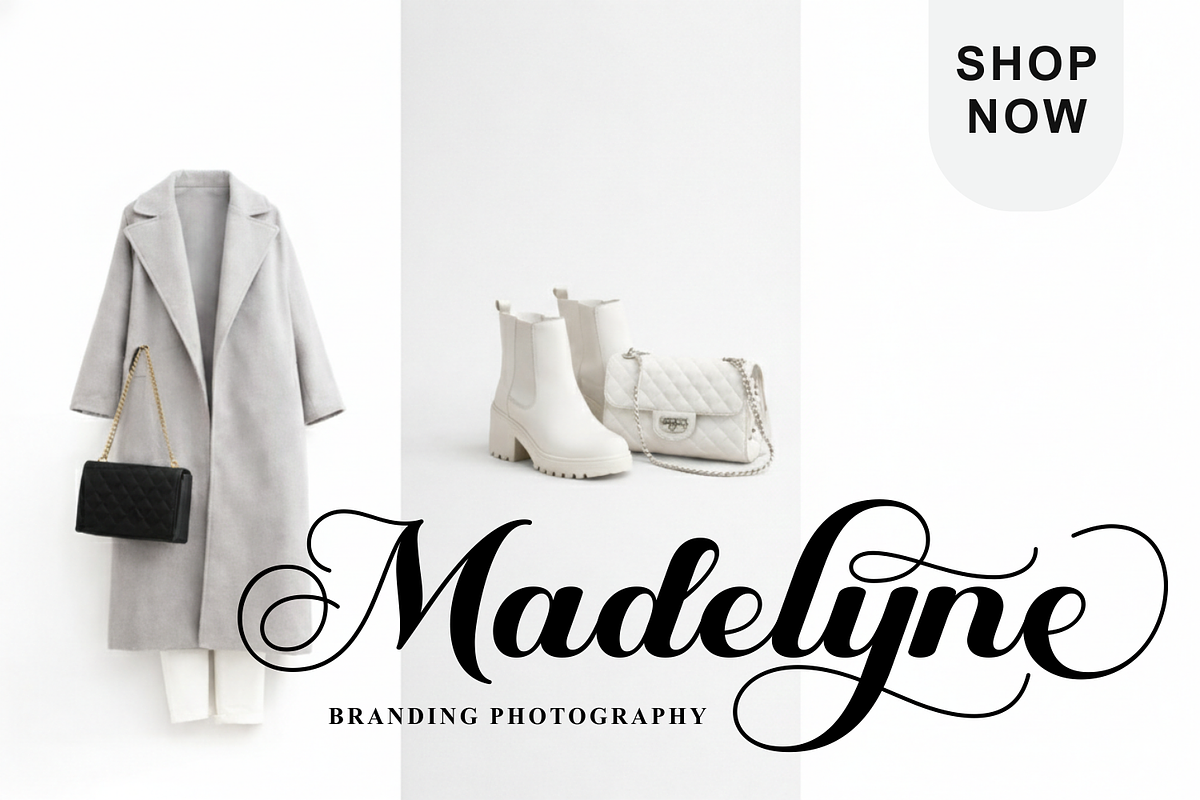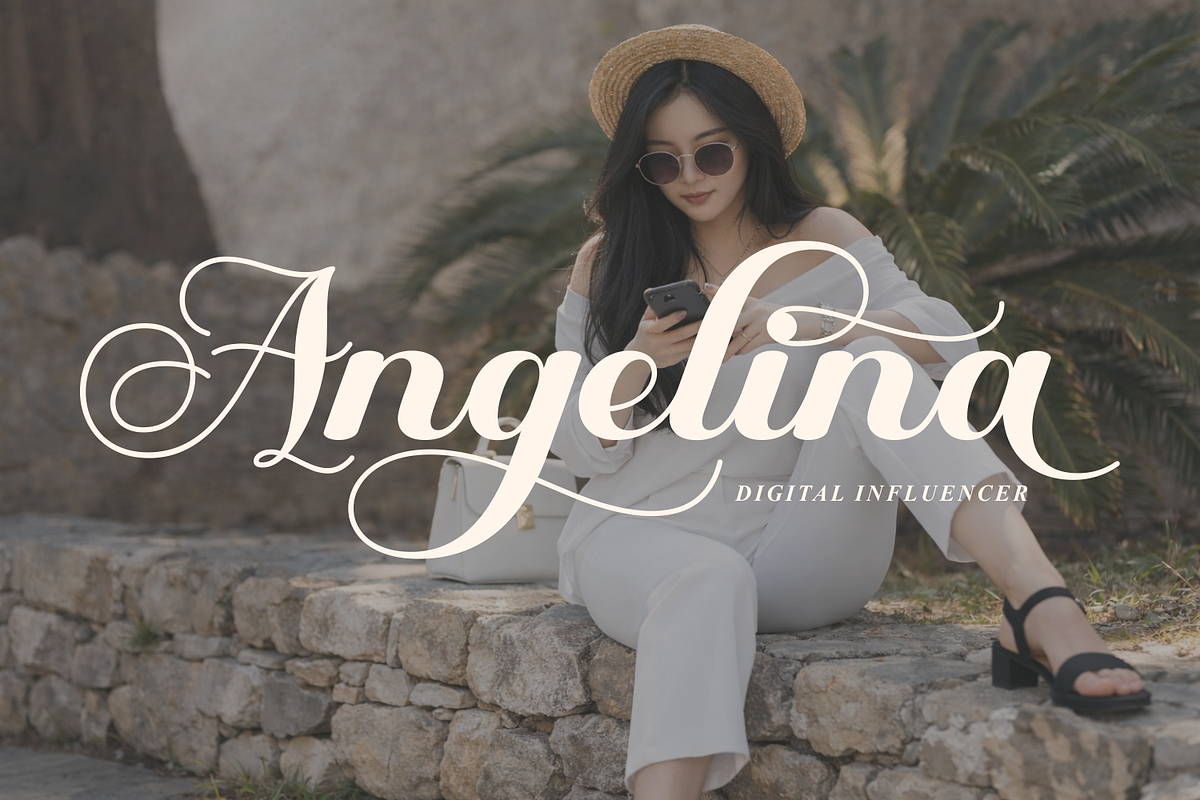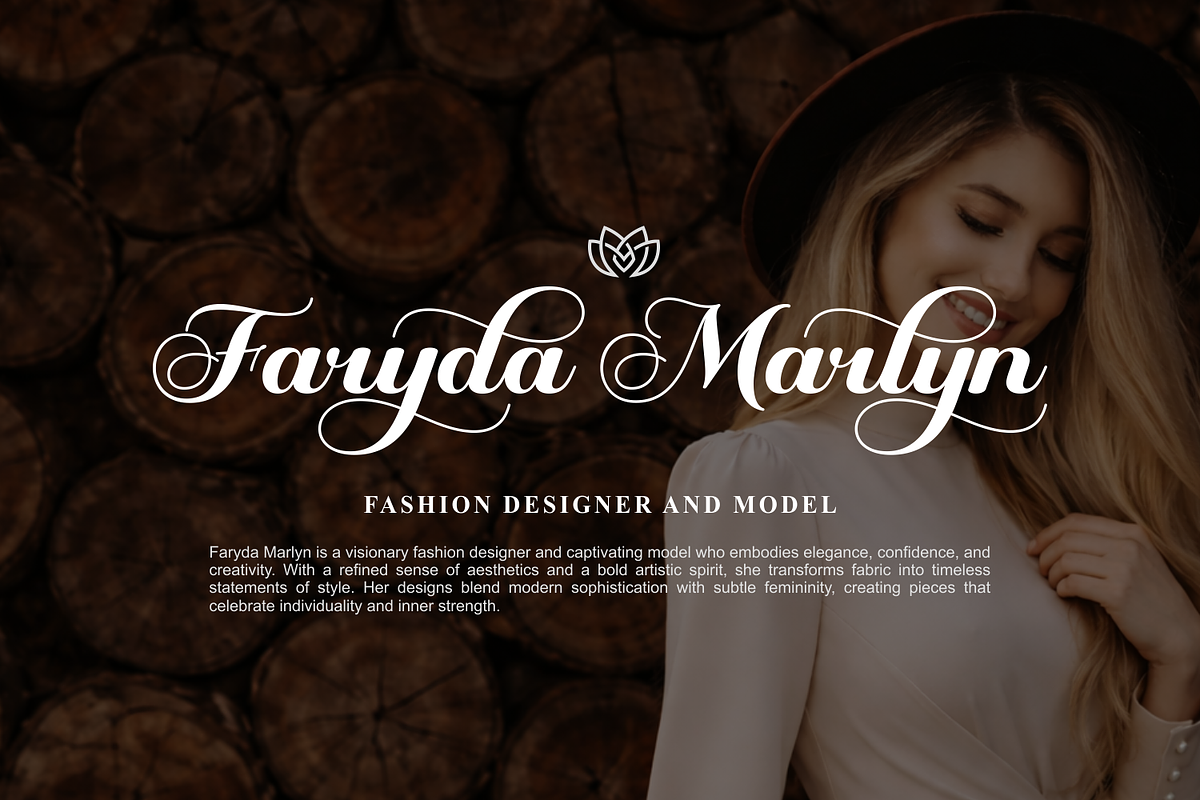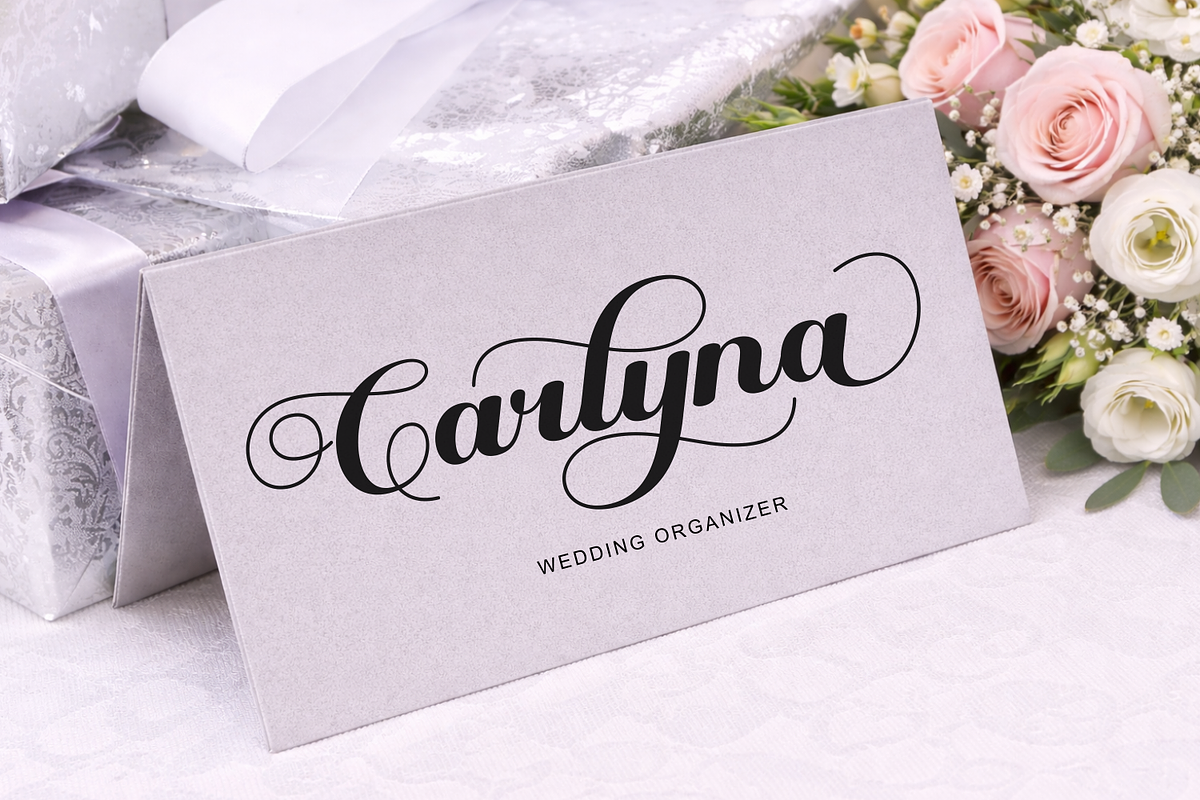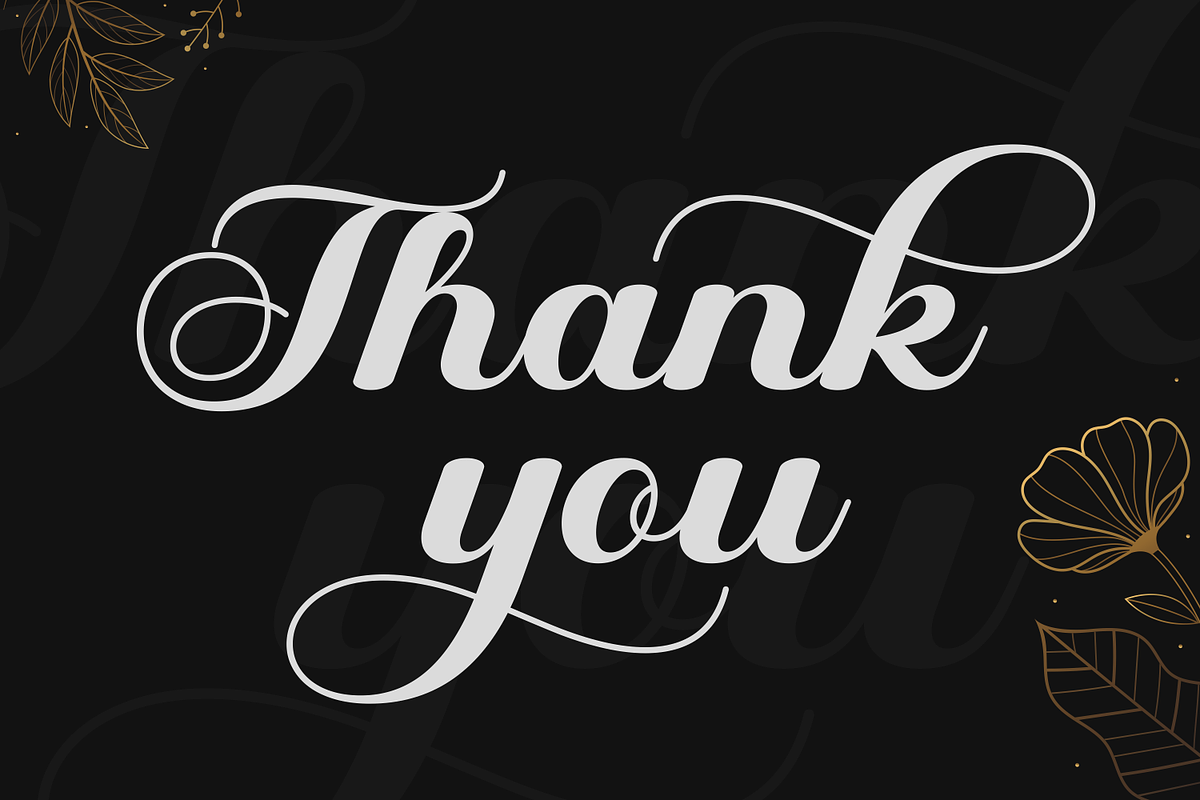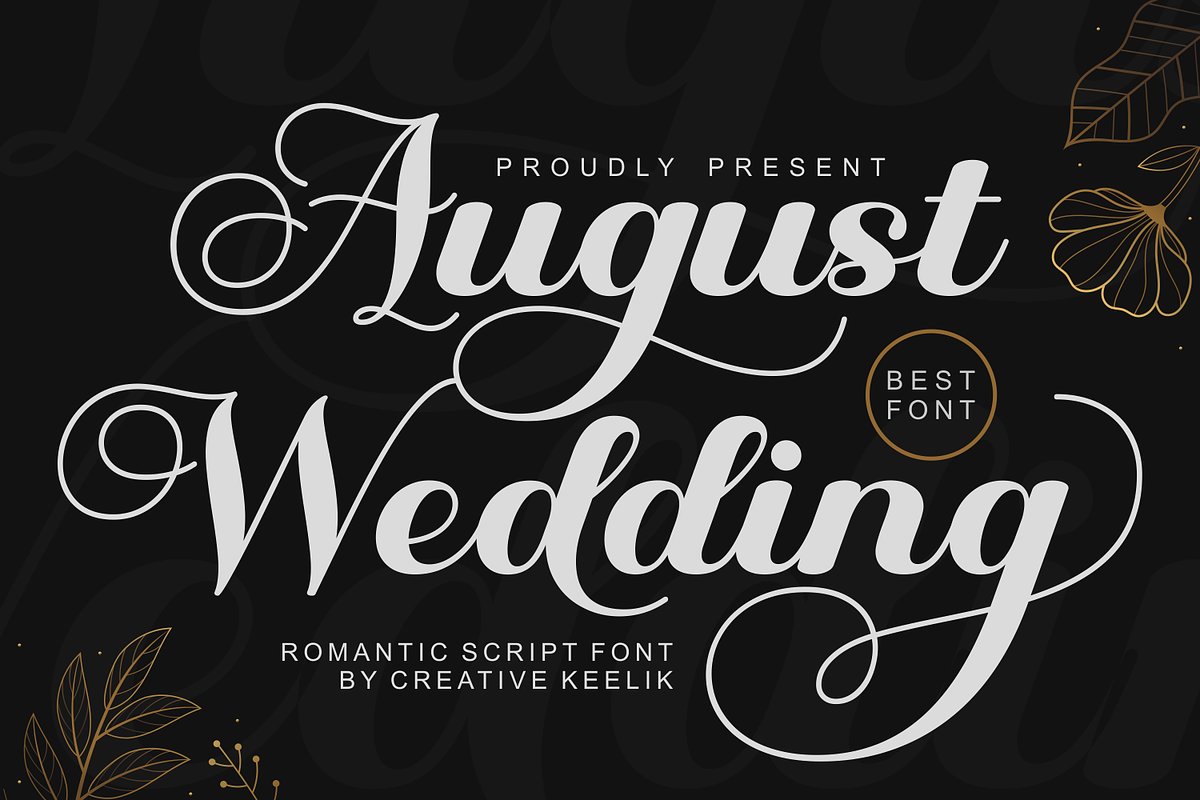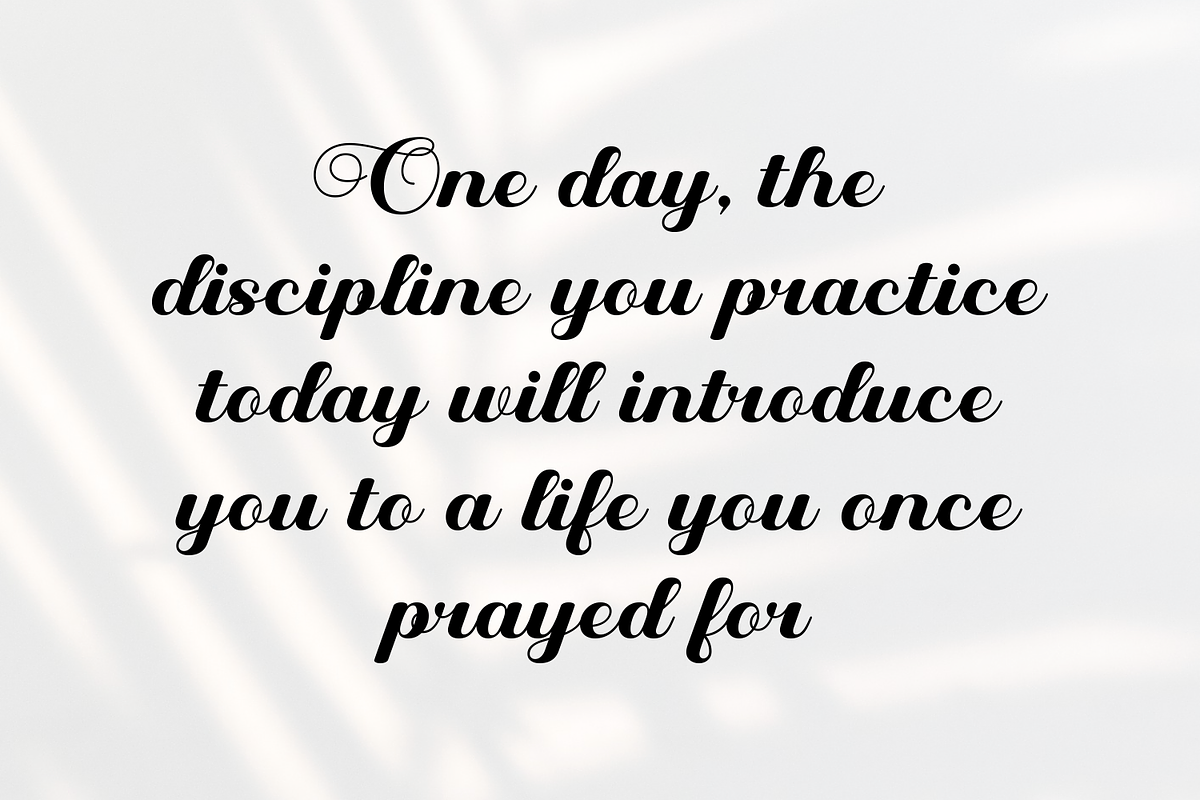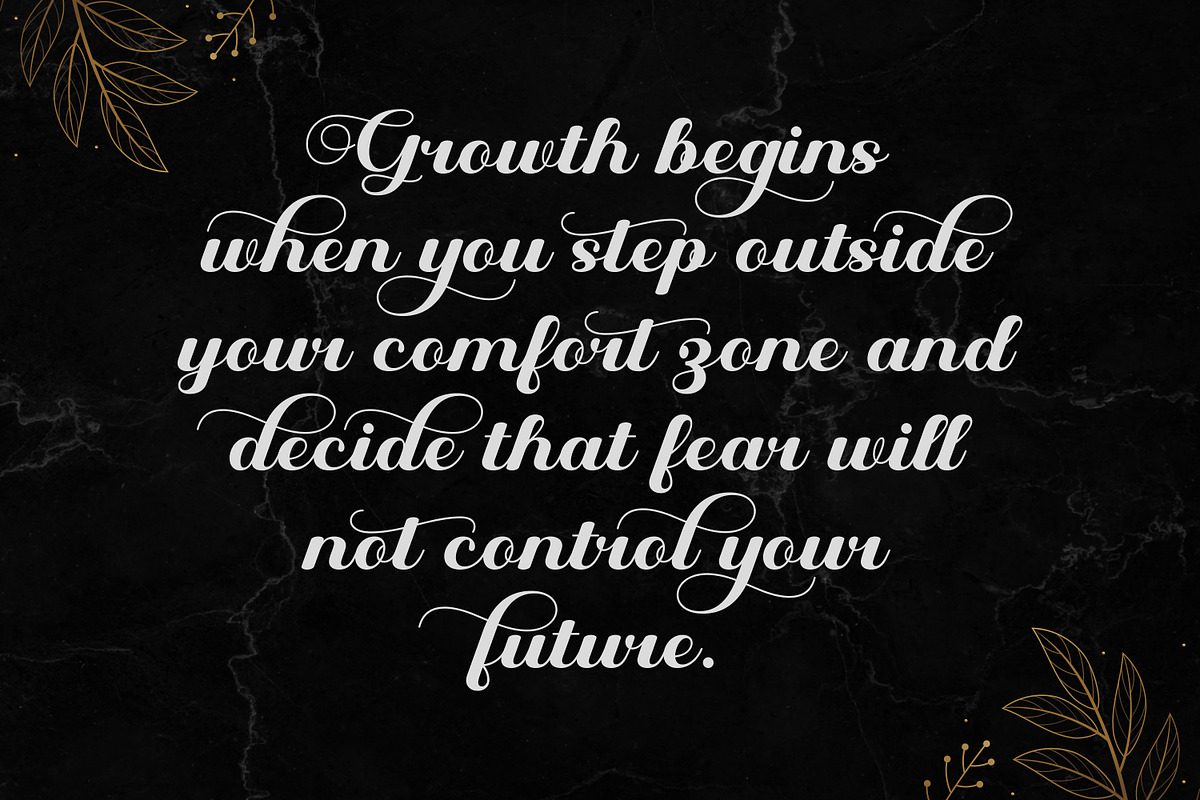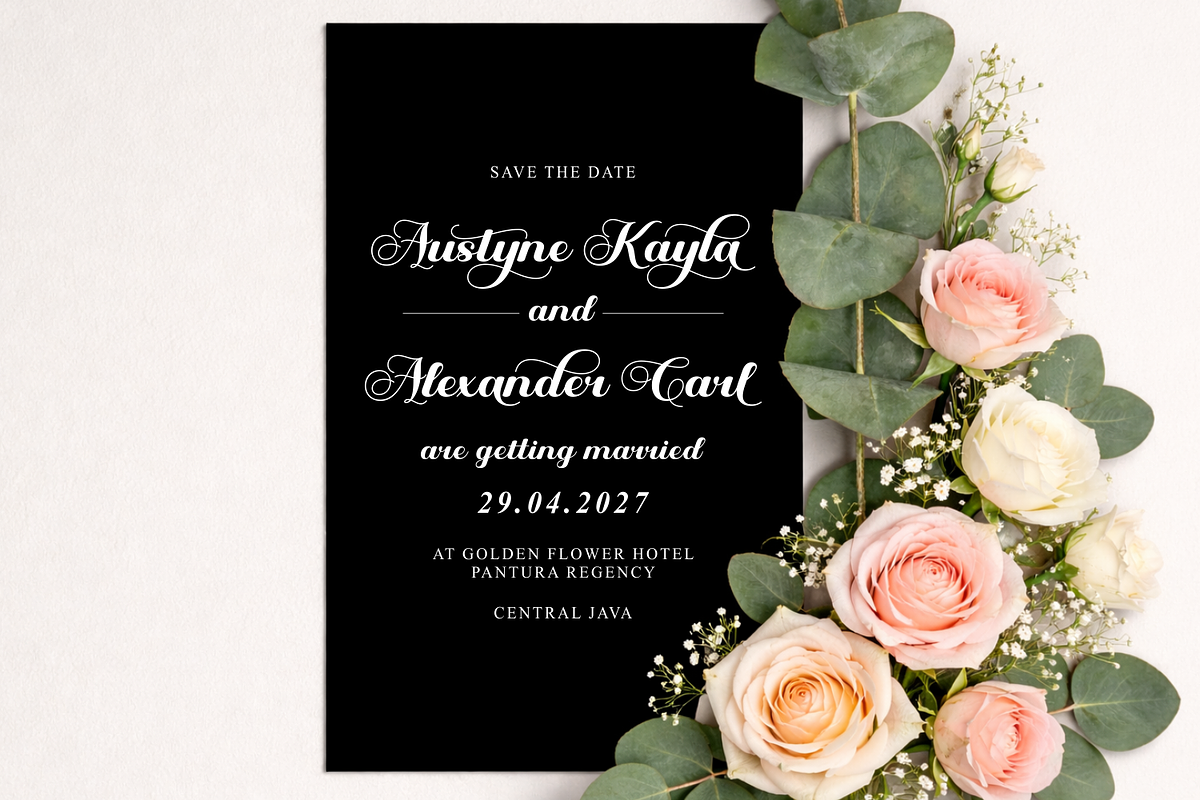
August Wedding
Introducing August Wedding, a luxurious and romantic script font designed to capture the essence of timeless love and refined elegance. Carefully crafted with graceful curves, flowing swashes, and delicate letterforms, this typeface brings sophistication and warmth to every design.
With its natural handwritten style and seamless letter connections, August Wedding is perfect for wedding invitations, luxury branding, logos, photography watermarks, social media content, packaging, editorial layouts, and high-end stationery. The dramatic swashes and stylish alternates create a beautiful visual rhythm that makes your typography feel exclusive, expressive, and unforgettable.
This font embodies romance, luxury, and artistic expression — making it ideal for designers who want to elevate their projects with a touch of class and emotional charm.